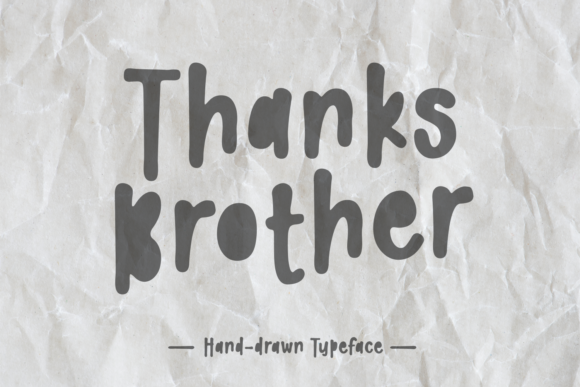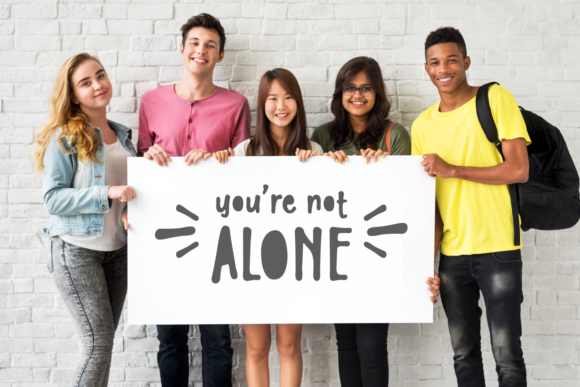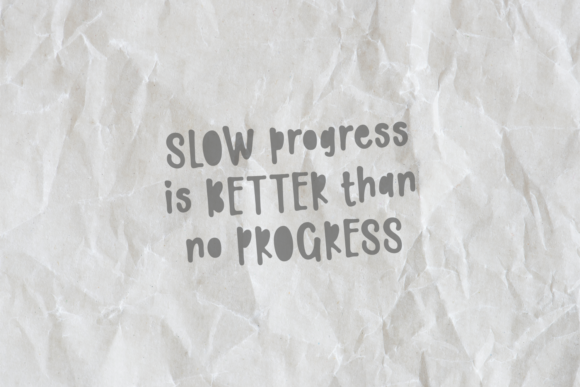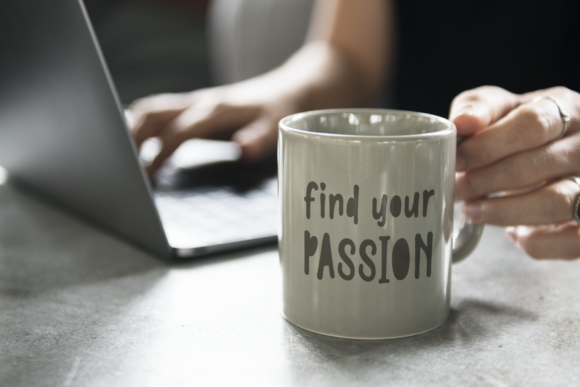
Thanks Brother Font
About Thanks Brother Font
Thanks Brother is a simple, yet elegant handwritten font with a smart feel. It will add a minimalist touch to any design project!